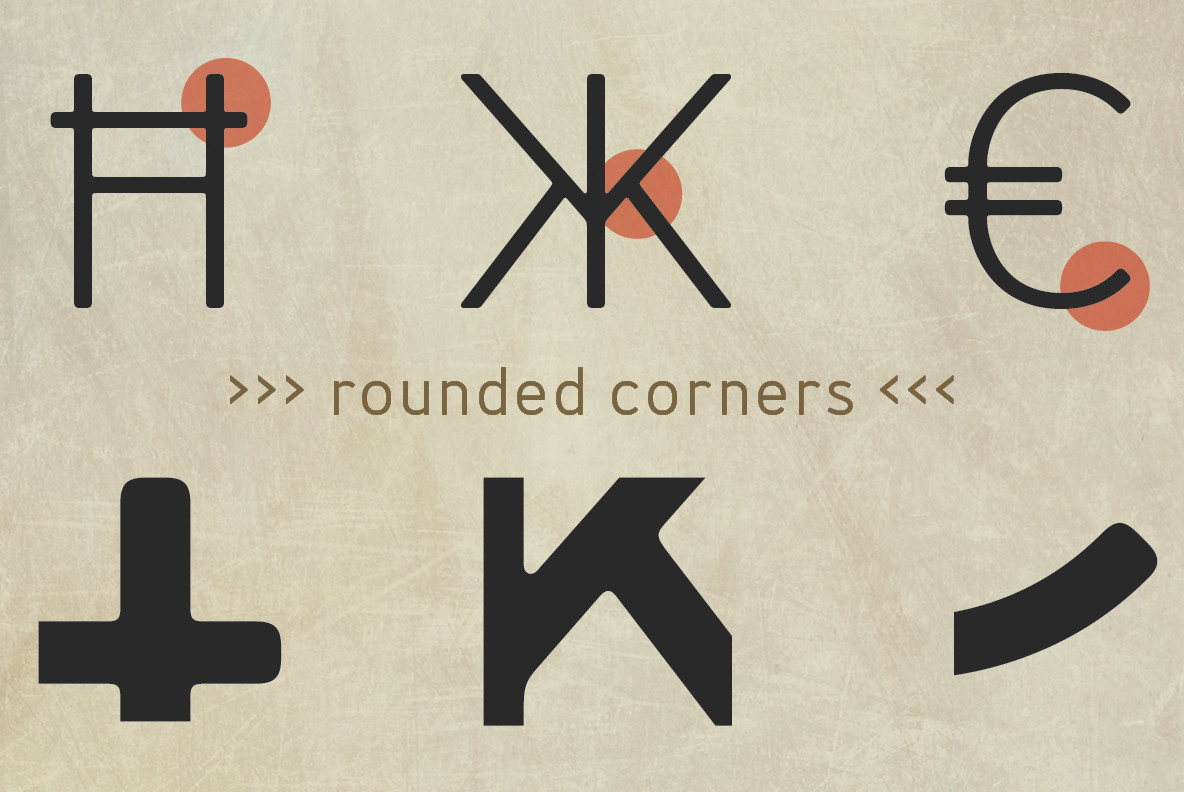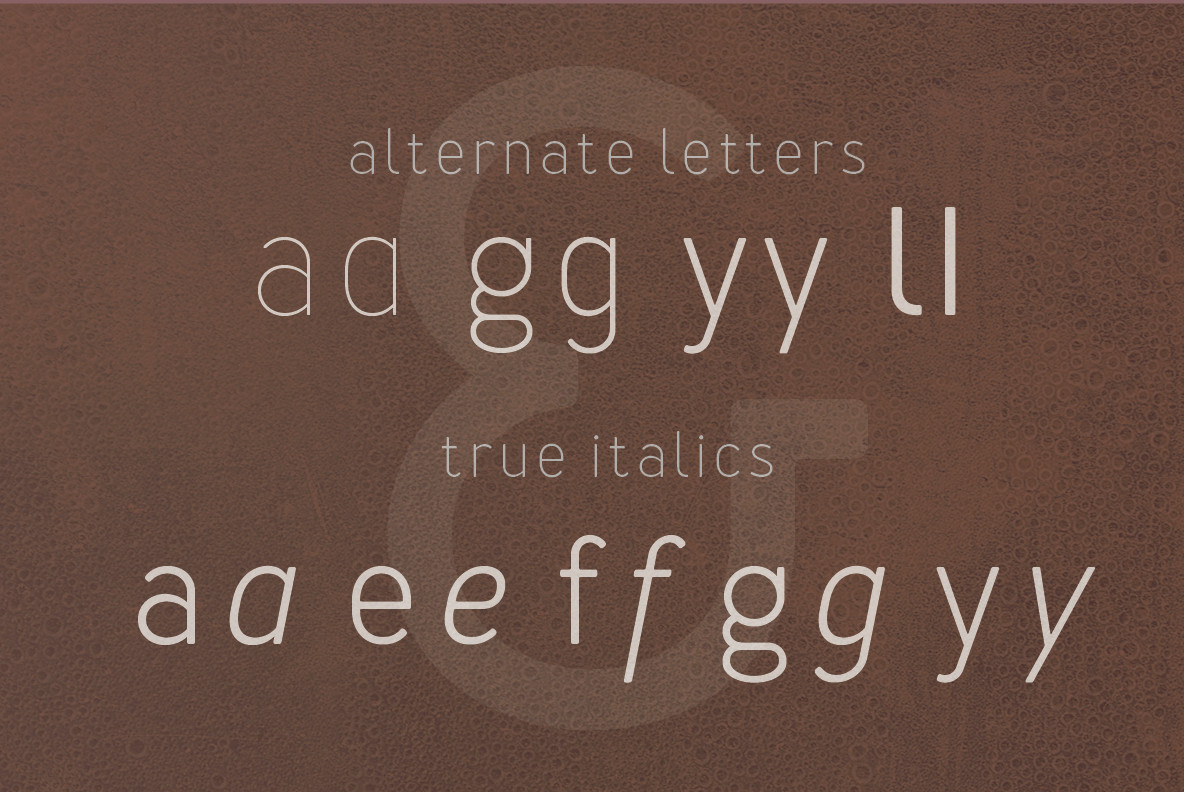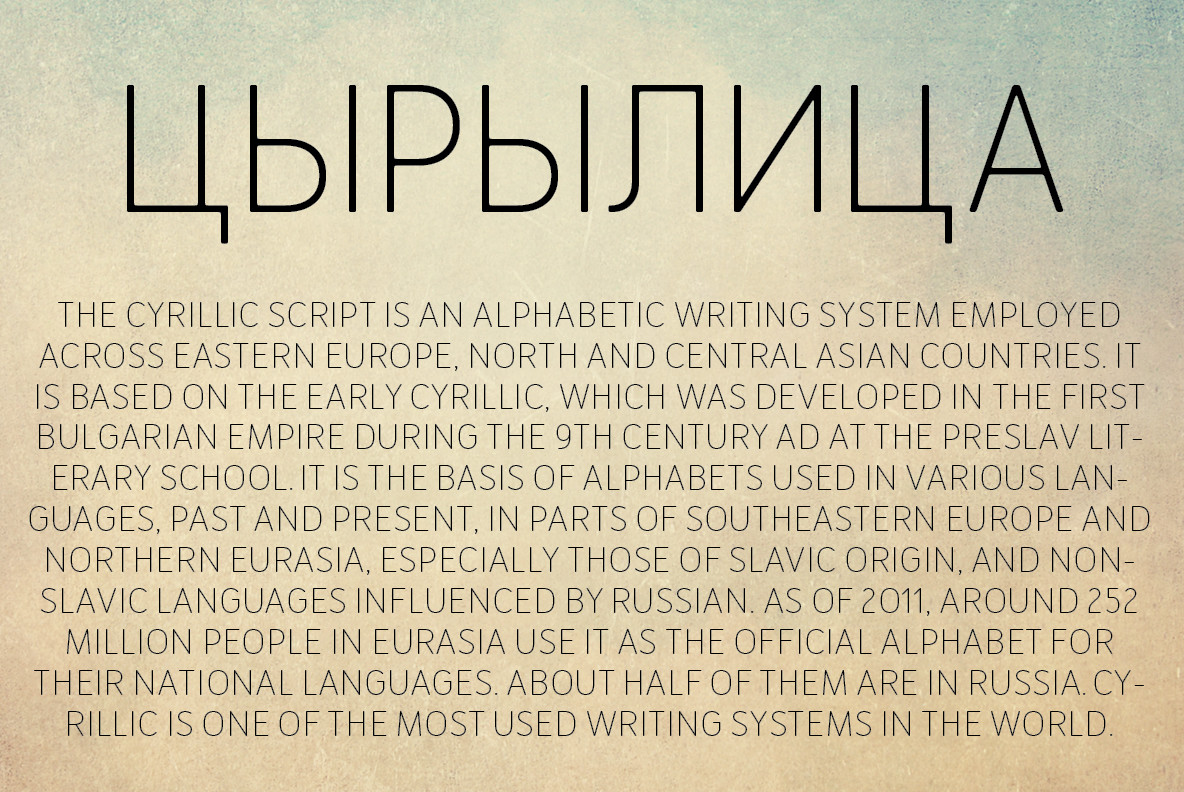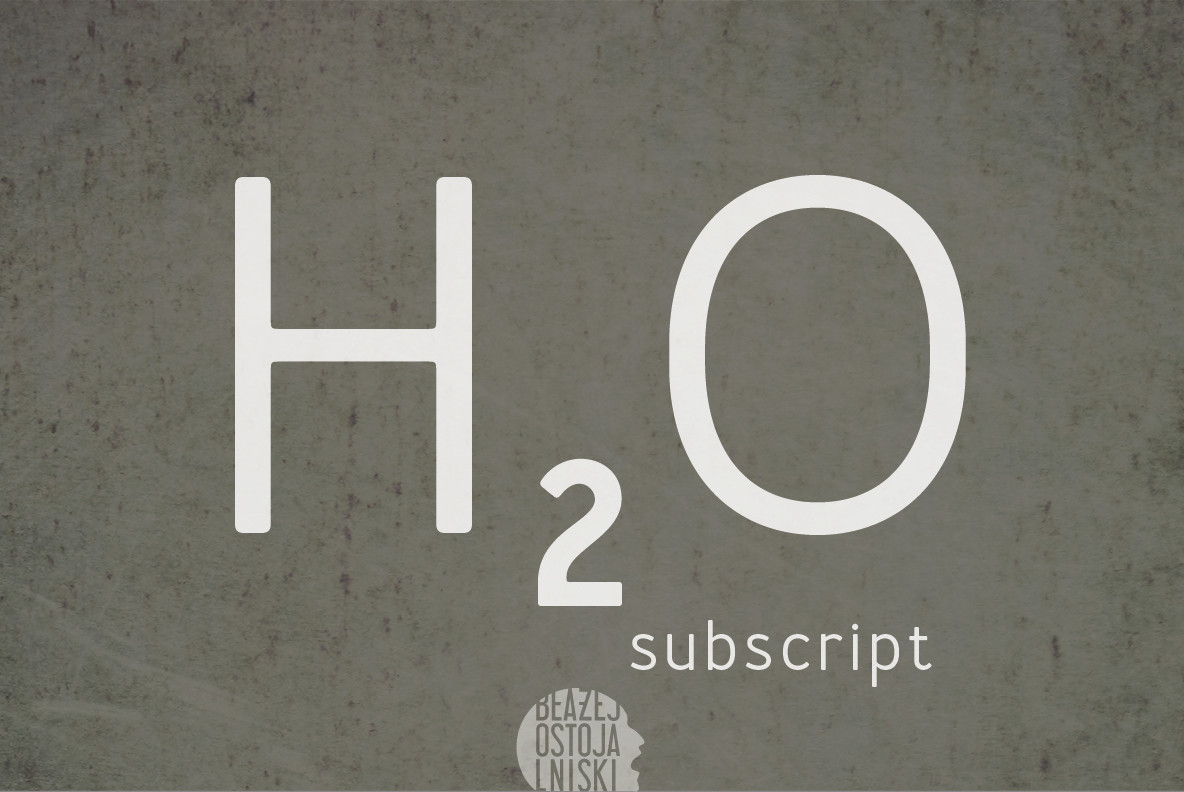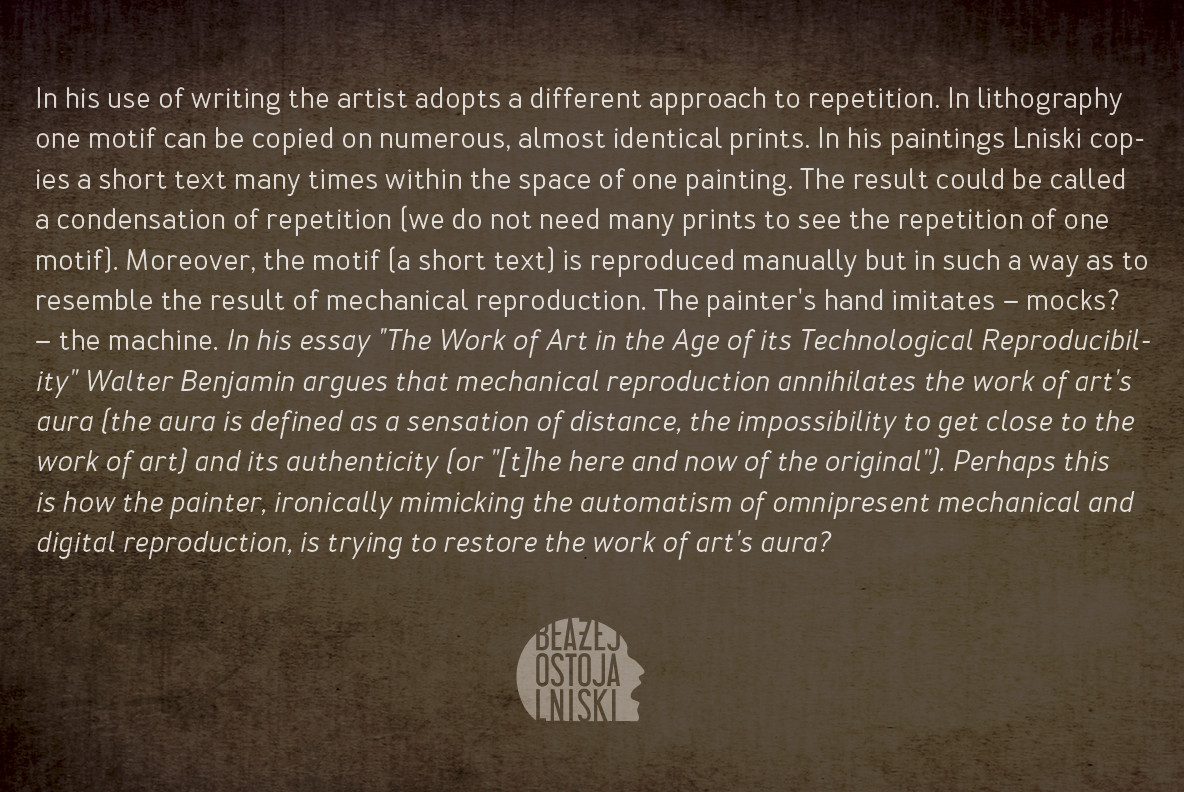
Merlo 1
Font Merlo is characterized by eight different varieties – lower and uppercase characters. It is inspired by a You And Me Monthly published by National Magazines Publisher RSW, Prasa that appeared from Mai 1960 till December 1973 in Poland.